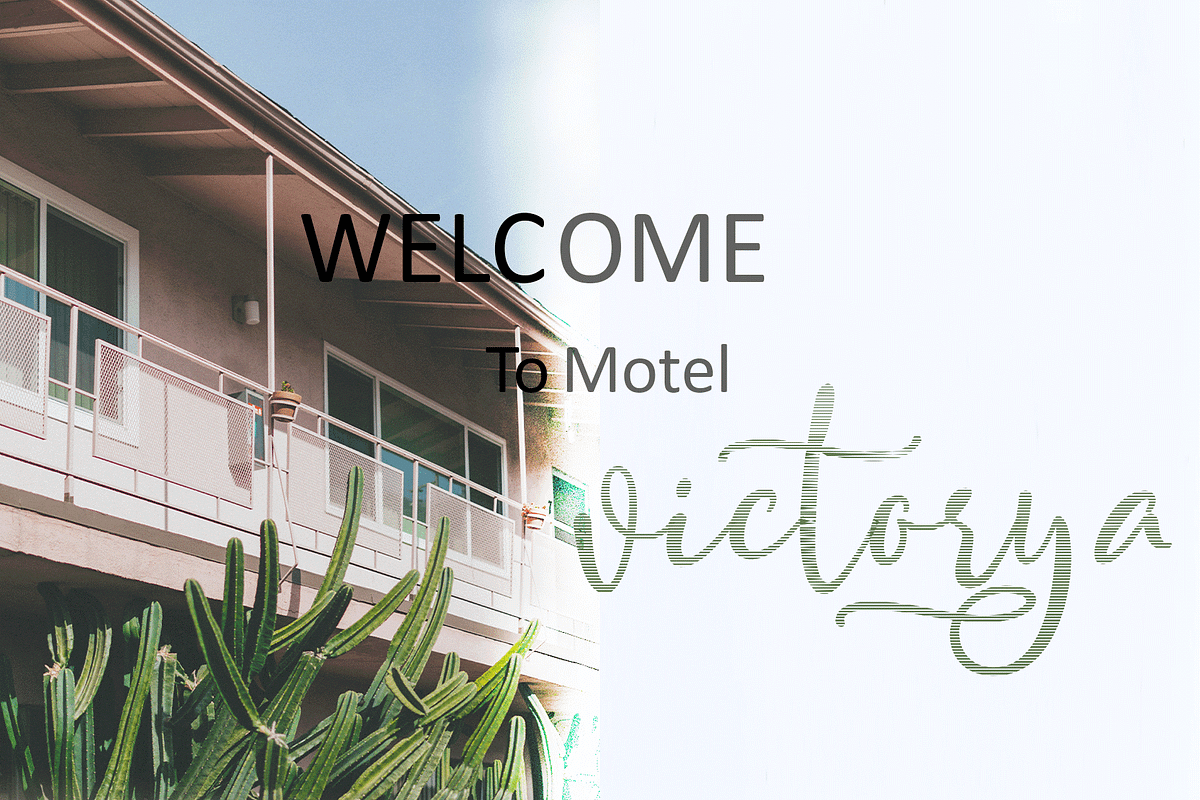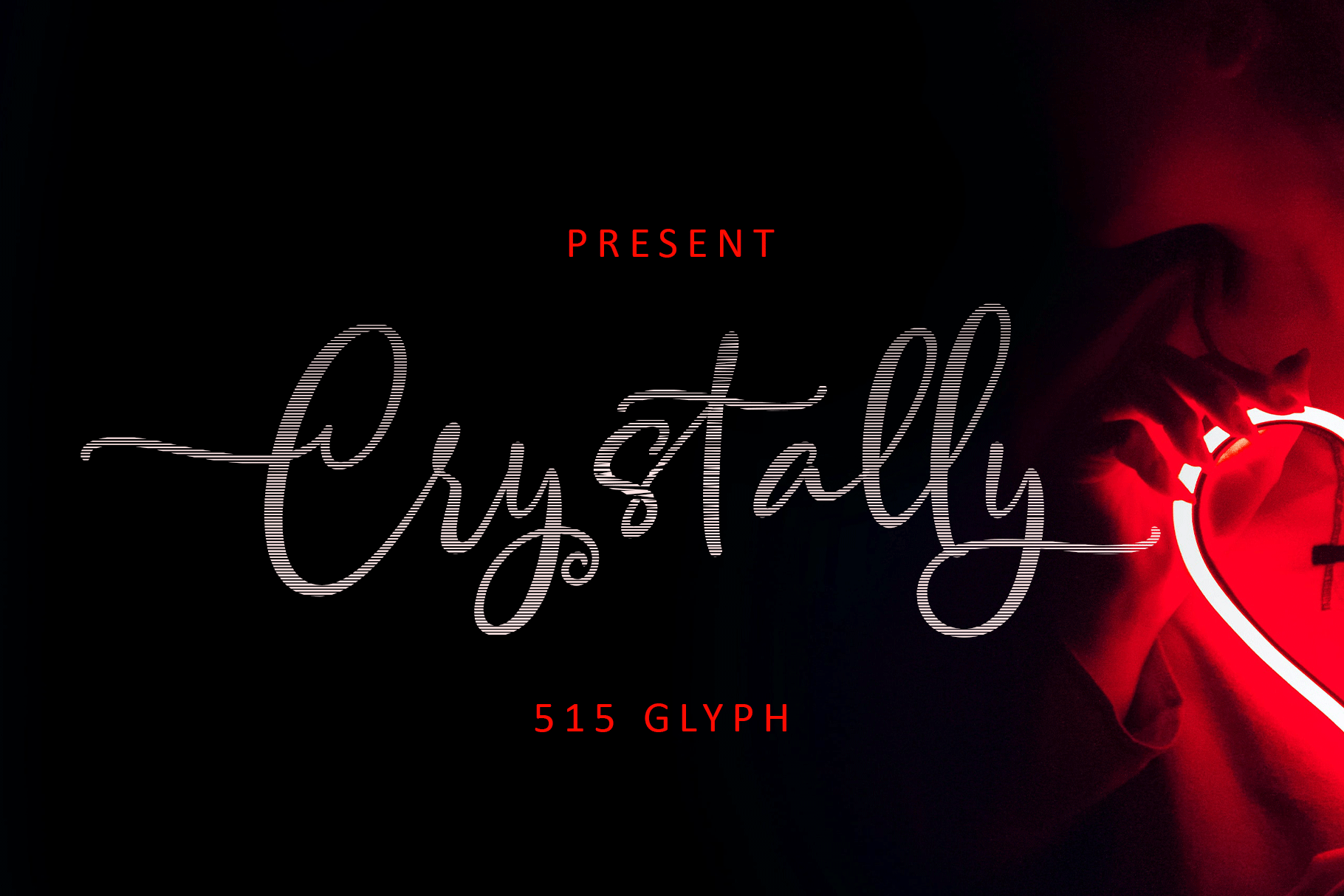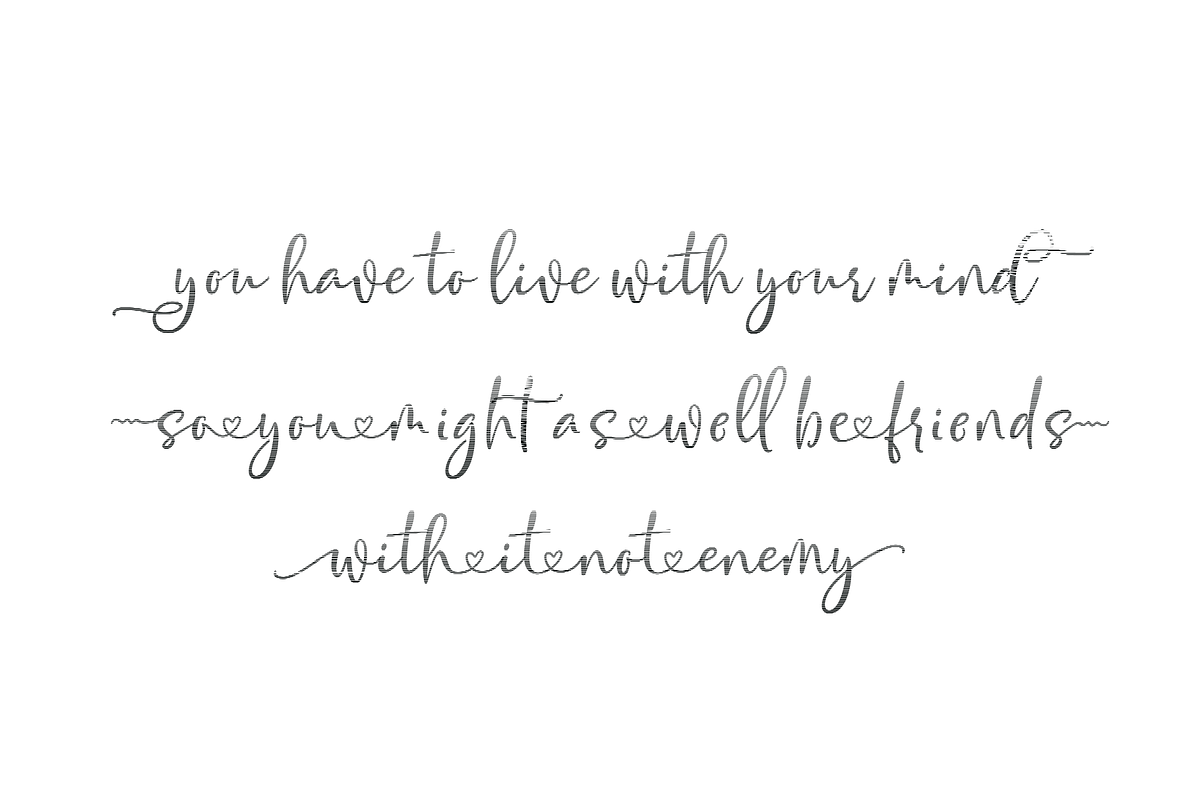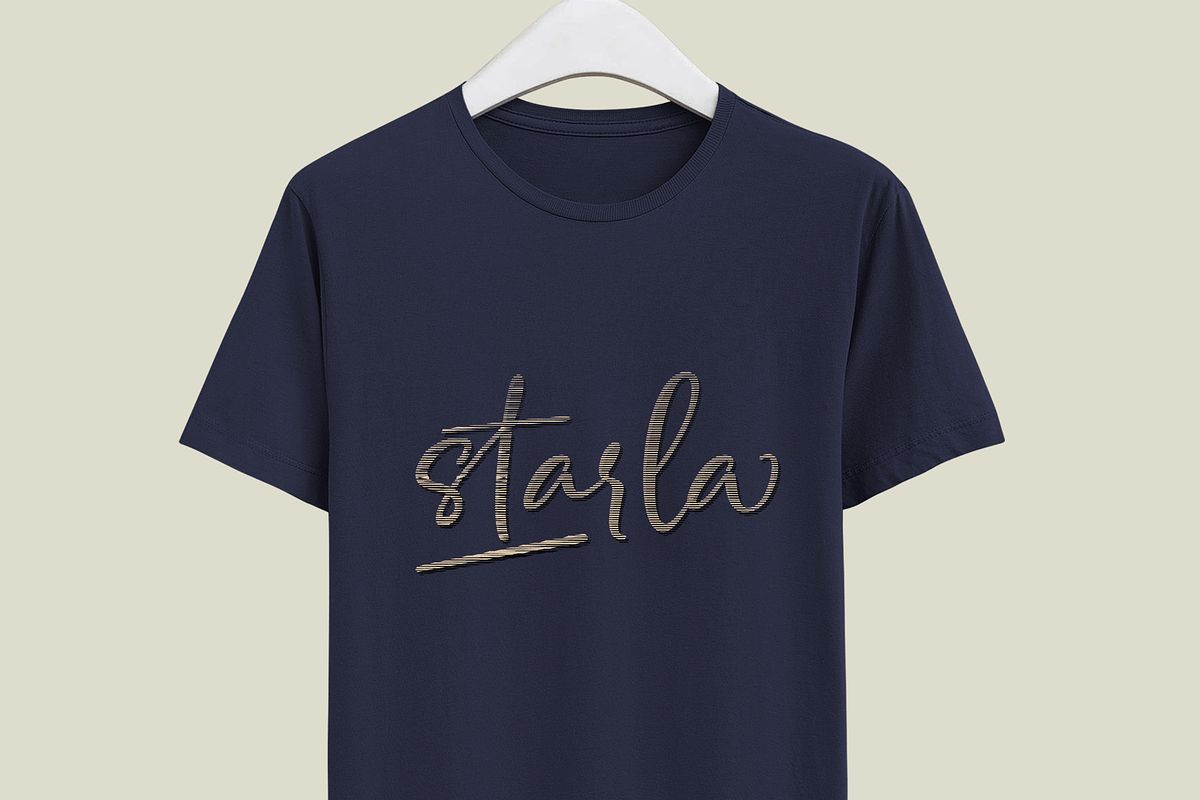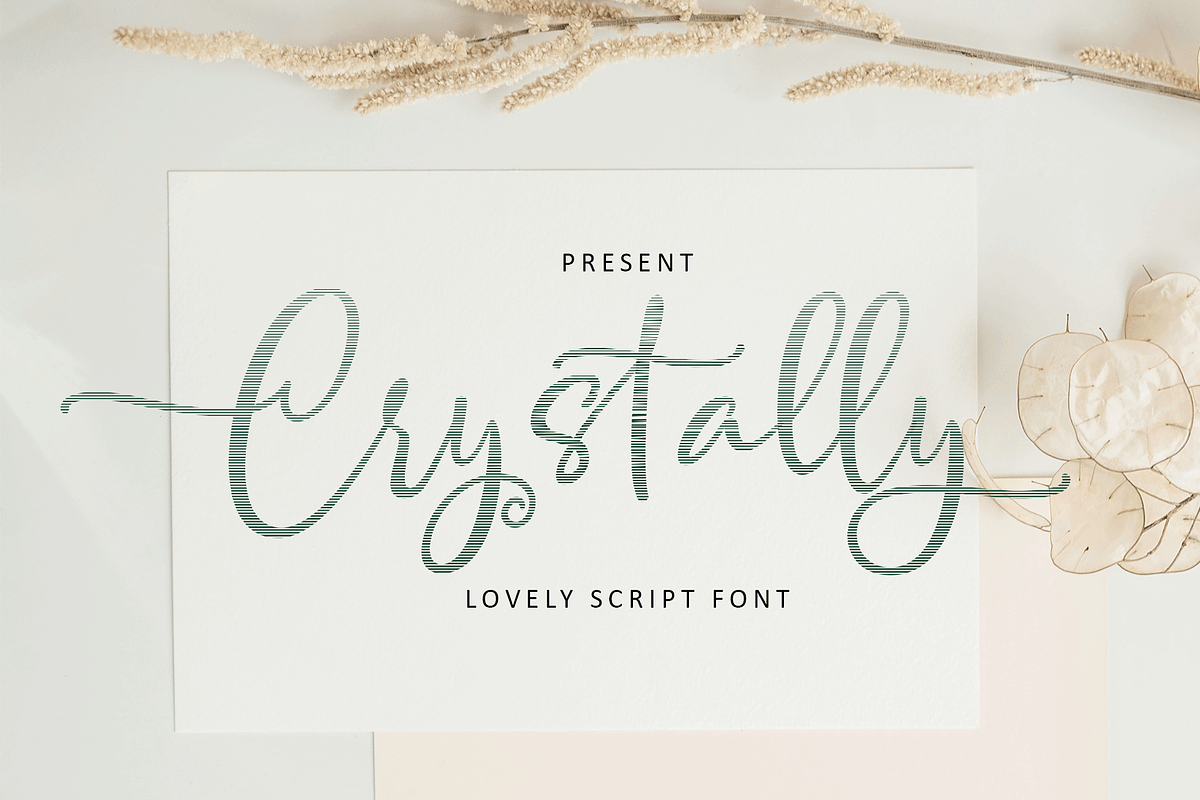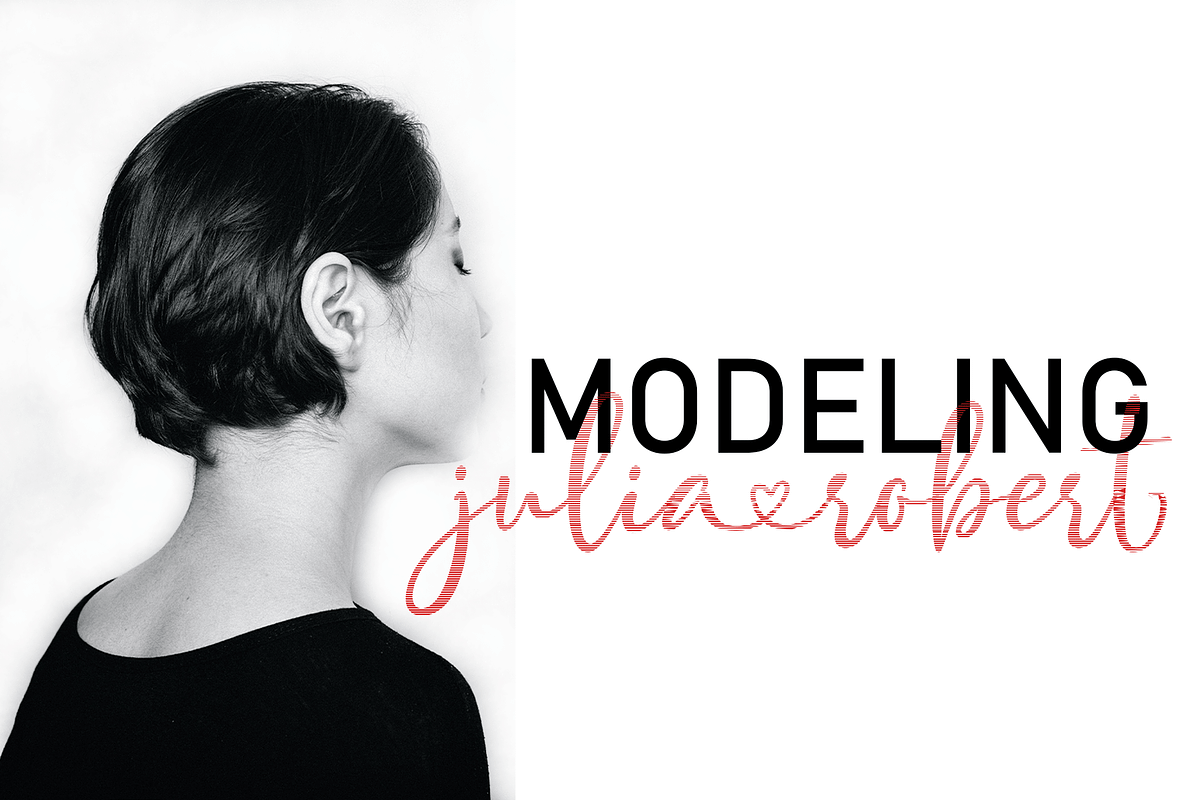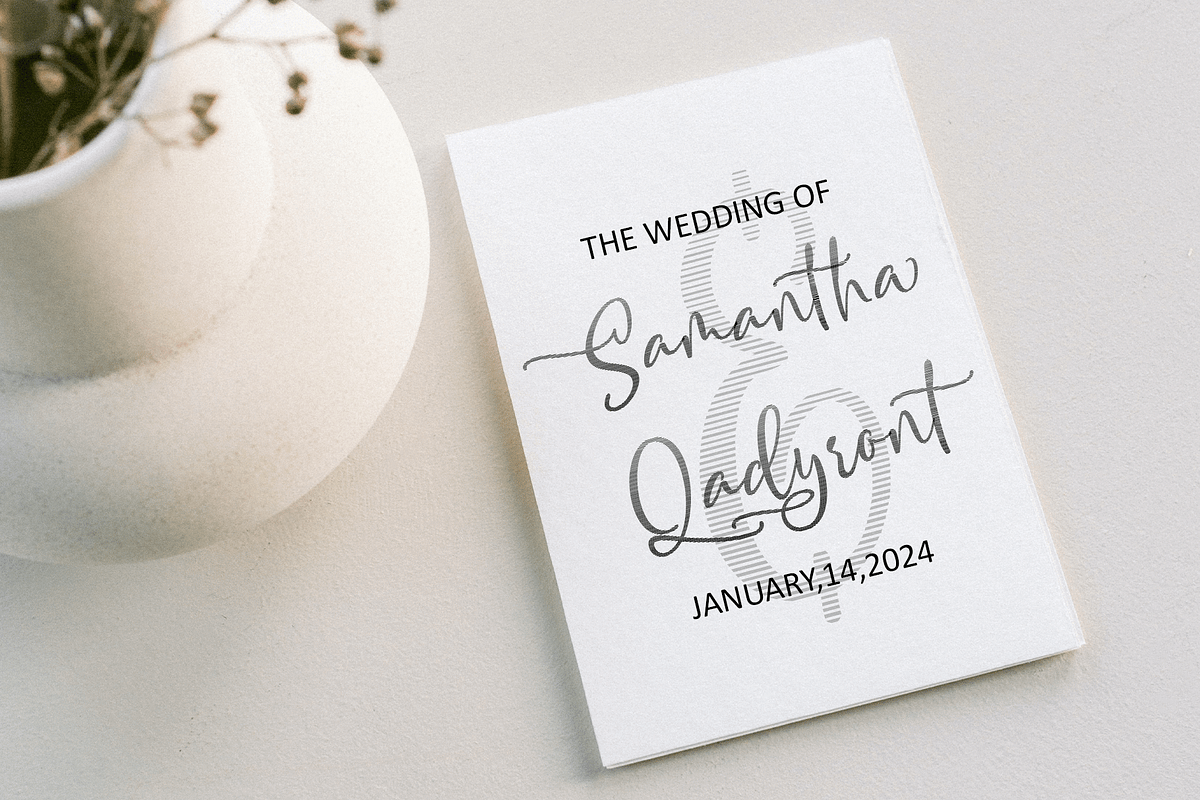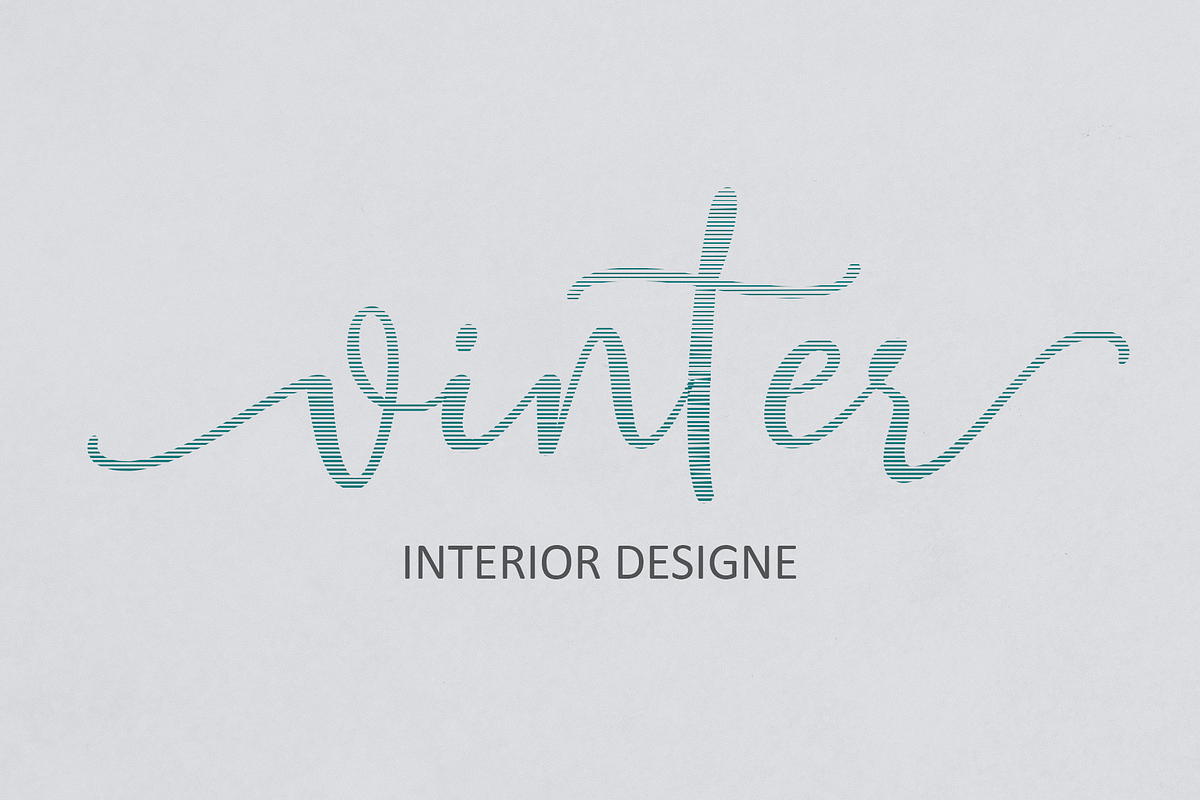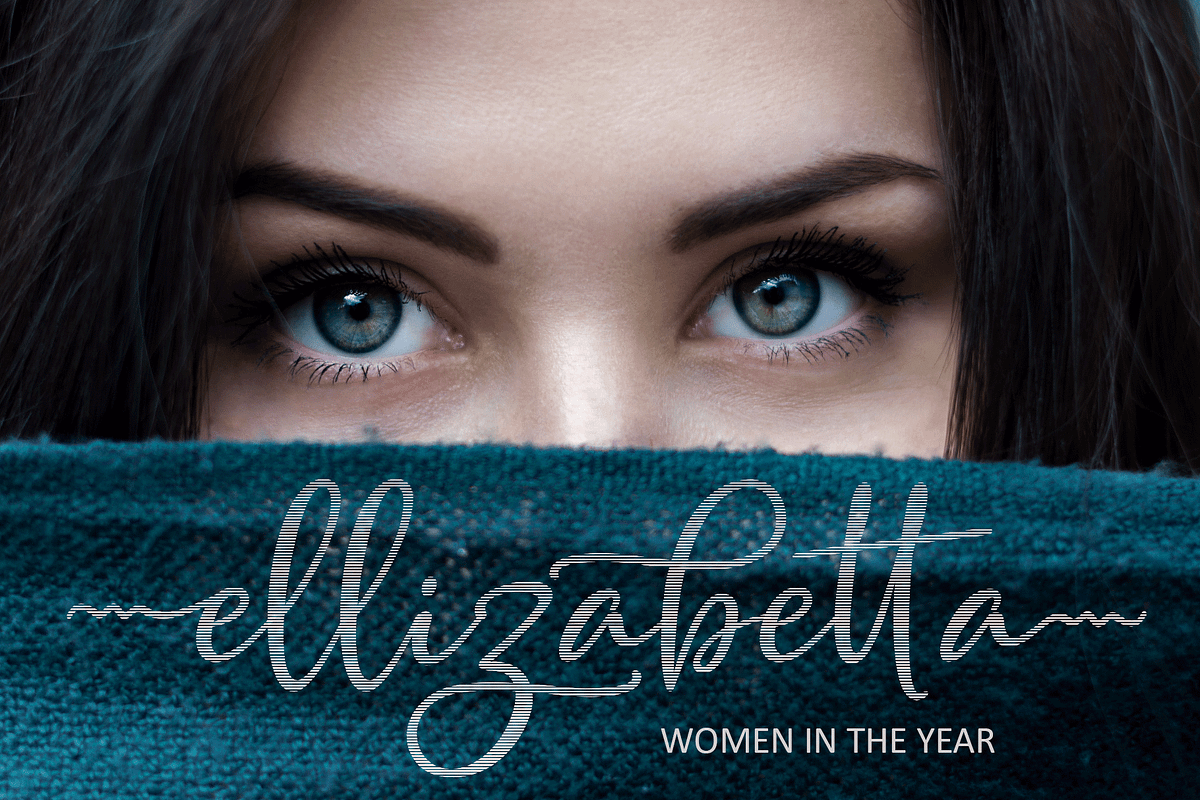
Crystally Gradient Slant Script Font
Crystally Gradient Slant Script Font is another lovely modern calligraphy typefaces, which is combining the style of classic calligraphy with an modern style. combines from copperplate to contemporary typeface with a dancing baseline, modern and elegant touch. including initial and terminal letters, alternates, and ligatures.